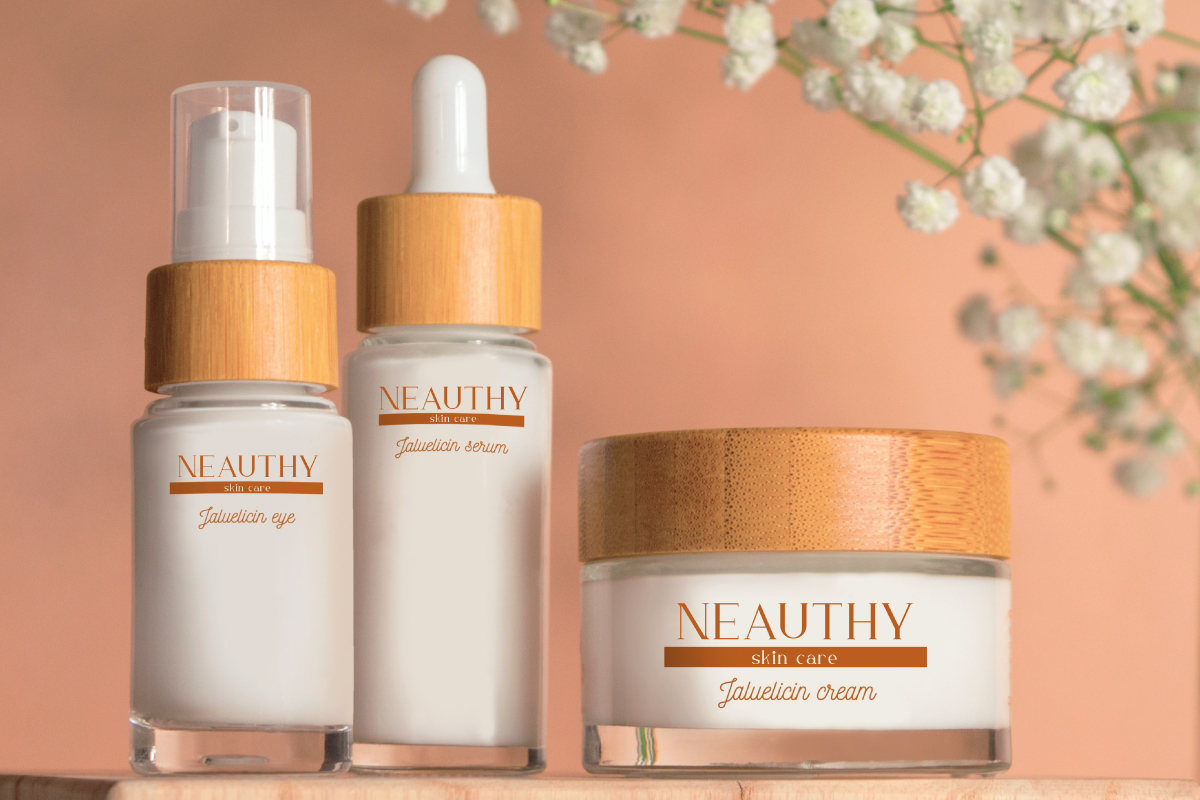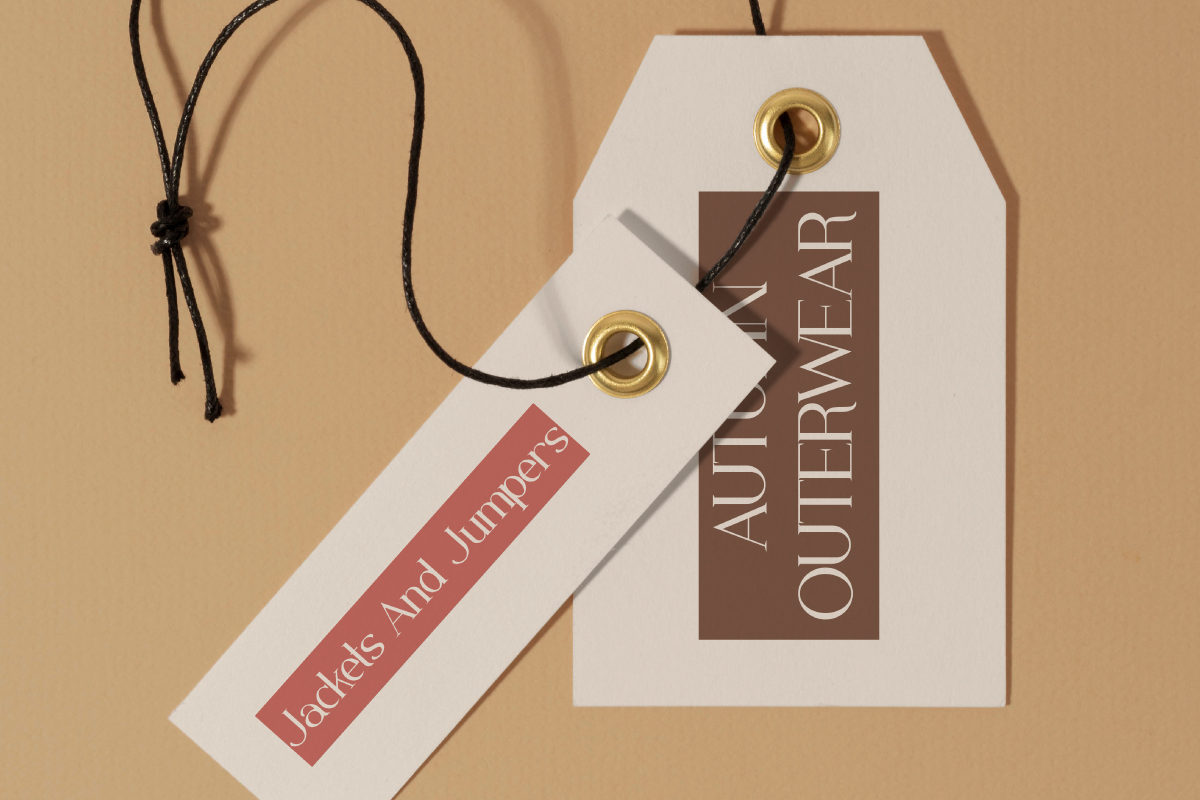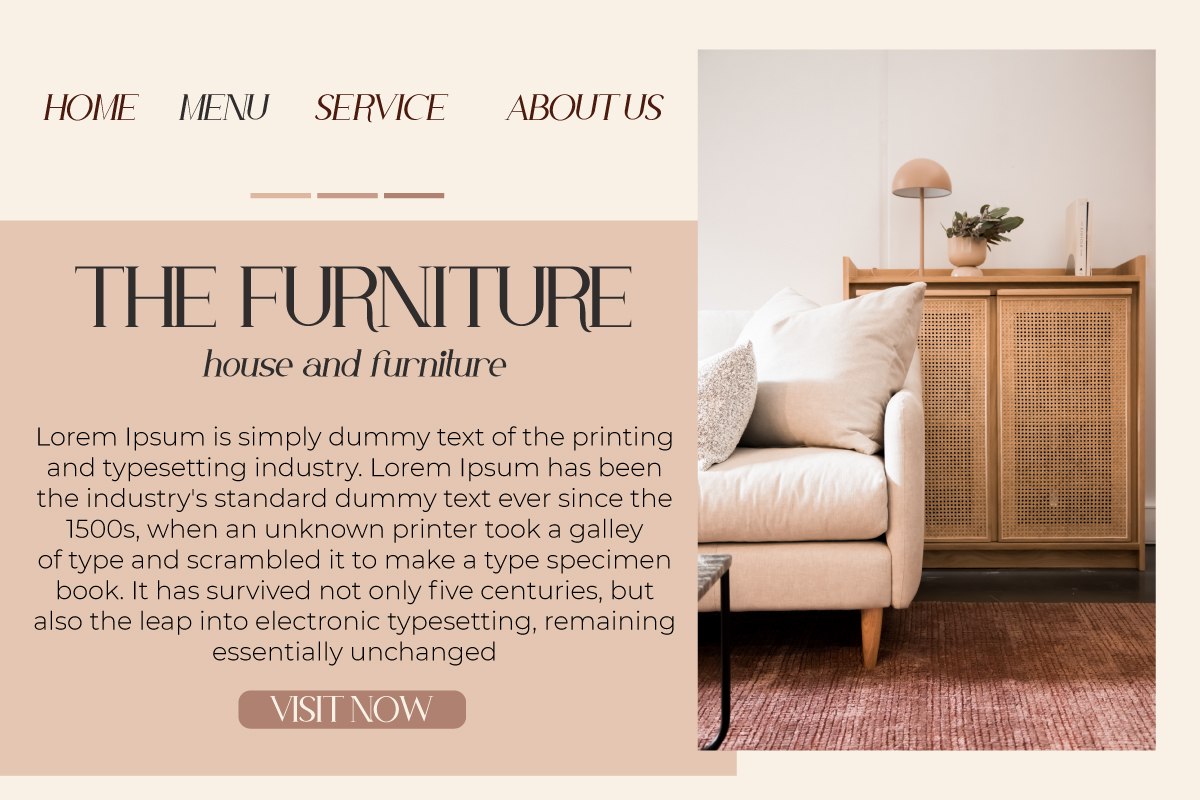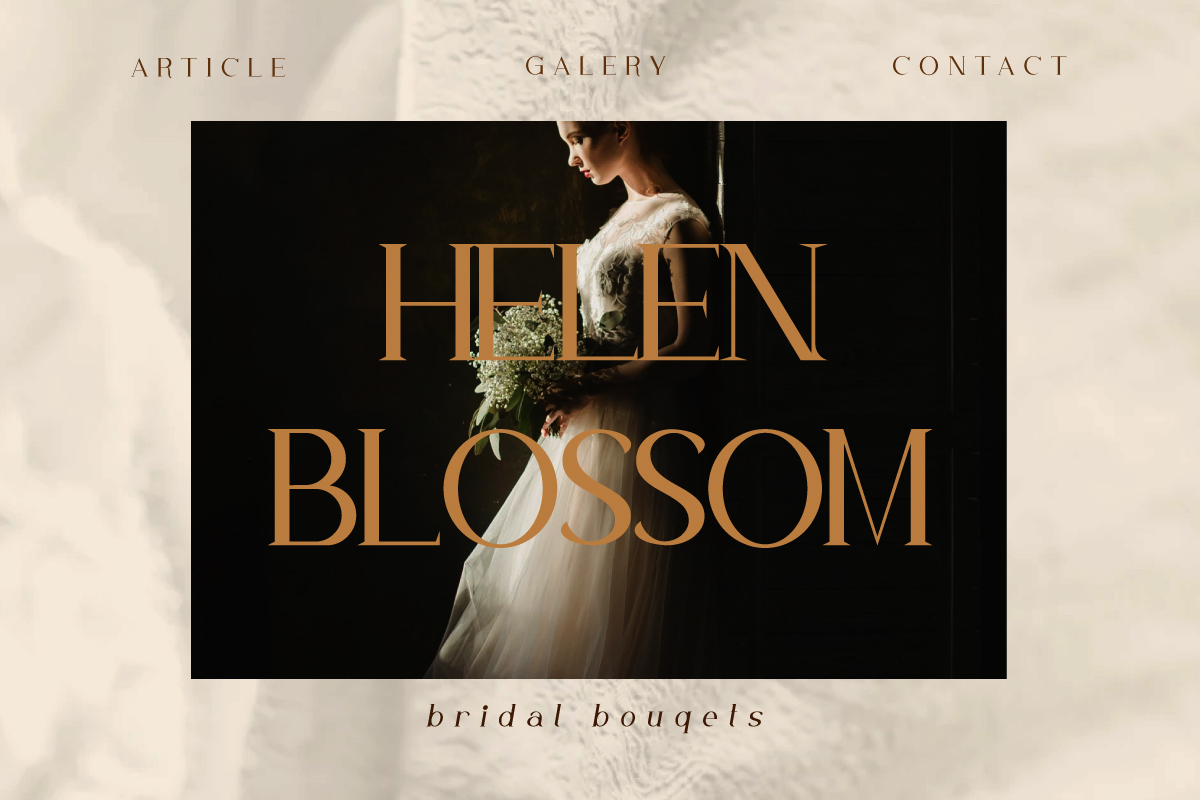
White Nougat Font
White Nougat Serif Font
It’s a serif font family with classic and stylish style. The characteristics of the font which are : classic and sophisticated. The font will be awesome for logo, brandings, headlines, signage etc.